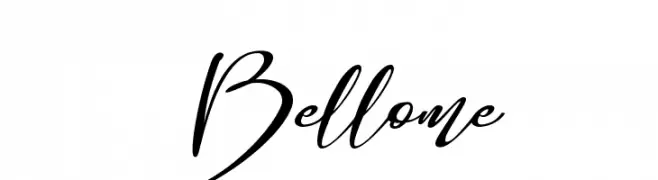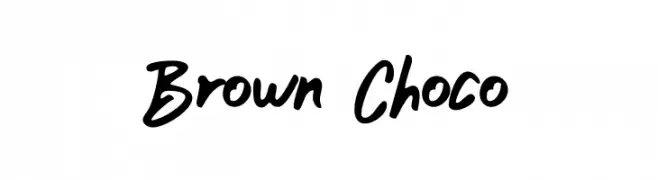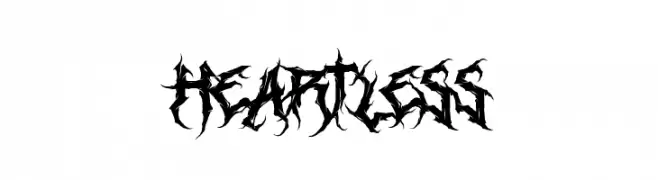
A versatile font with decorative and bold sans-serif styles.
A decorative font with Western and retro influences, featuring ornate uppercase letters and clean numerals.
A bold, textured font with a playful, hand-drawn style.
A bold, expressive handwritten font with a playful, artistic style.
A bold, flowing script font with elegant curves and interconnected letters.
A bold, brush-style font with dynamic and expressive strokes.
A dynamic and fluid script font with elegant, flowing lines.
A bold, brush-style font with a dynamic, hand-painted look.
A bold, gothic-style font with sharp, angular edges and a dramatic aesthetic.
A playful, textured font with a hand-drawn, rustic charm.
A bold, textured vintage font with a distressed, rustic look.